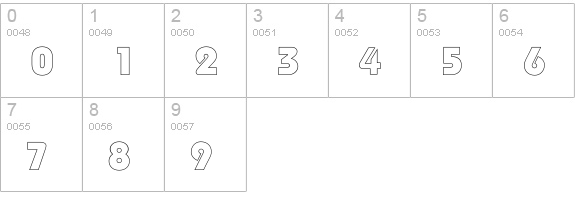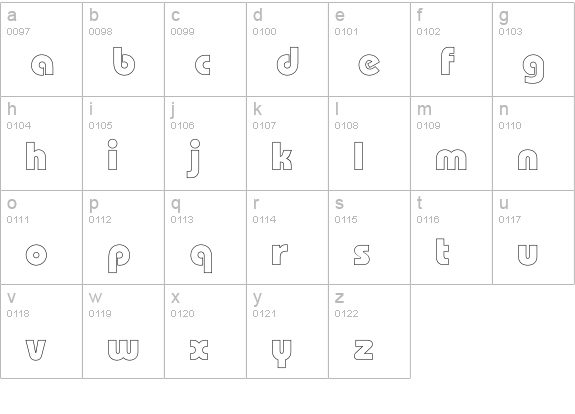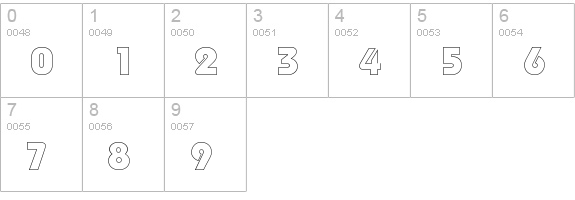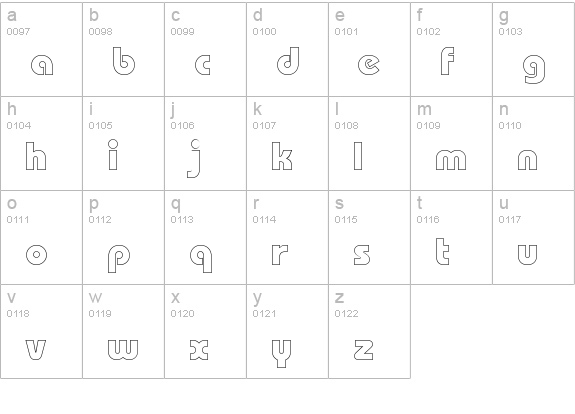
Bordeaux Black Hollow is a maximum-weight, dramatic variant in the Bordeaux typeface family \xE2\x80\x94 well suited to maximum-impact headlines, posters, and packaging.
Introducing Bordeaux Black Hollow font - a striking display typeface that combines elegance with a modern touch. This unique font features intricate hollow letterforms that make a bold statement in any design project. The contrast between the thick strokes and negative space creates a captivating visual impact, perfect for headlines, logos, and branding. Bordeaux Black Hollow font is not only visually appealing but also versatile, suitable for both digital and print applications. Its sleek and sophisticated design adds a touch of sophistication to any project, making it stand out from the crowd. Best of all, Bordeaux Black Hollow font is available for free download at FontsMarket.com. So, whether you're a designer looking to add a touch of drama to your work or a creative looking for a stylish font for your next project, Bordeaux Black Hollow font is the perfect choice. Download it today and elevate your designs with this eye-catching typeface.